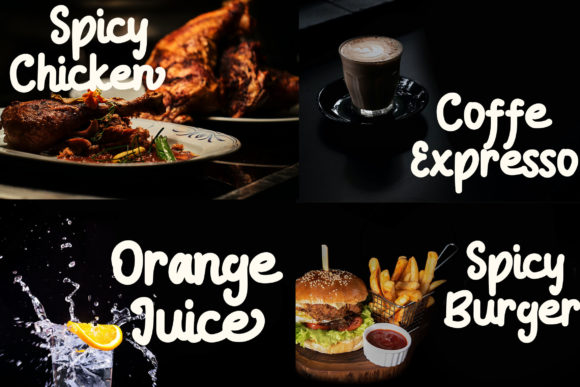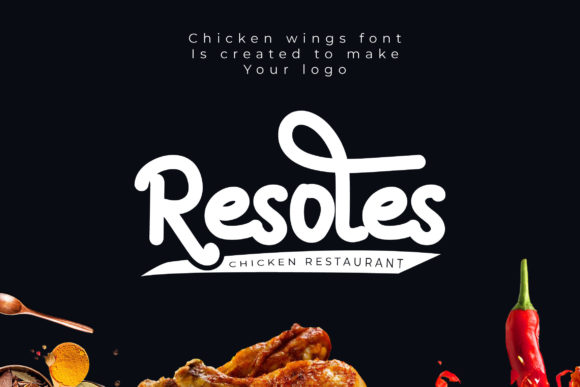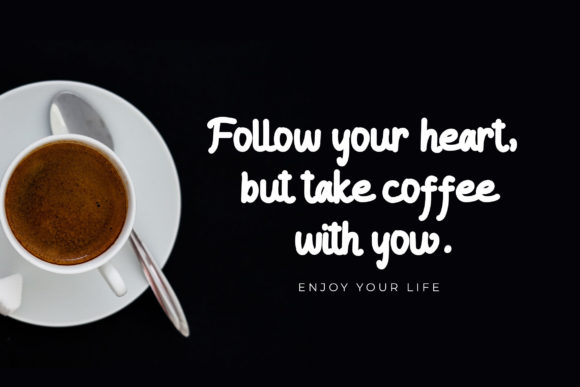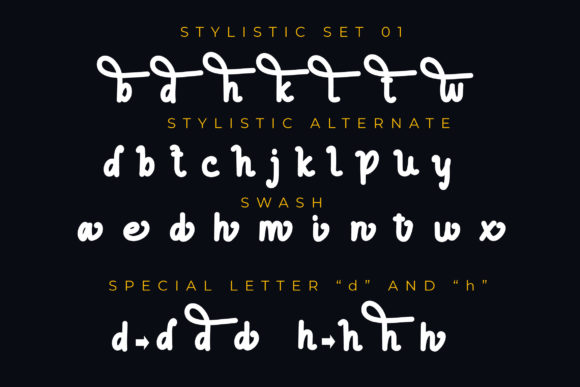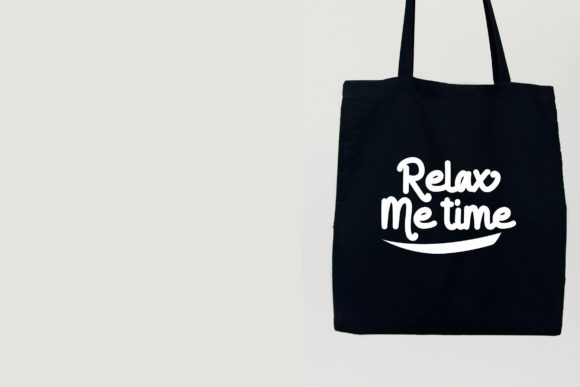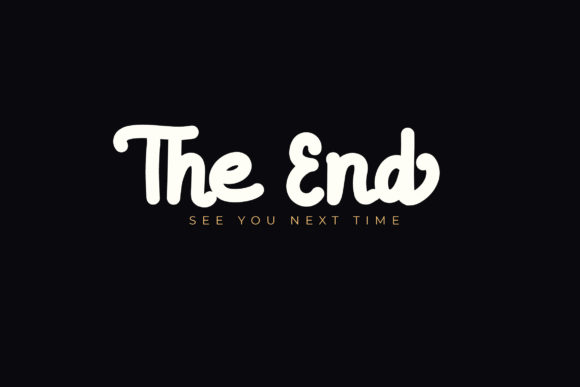
Chicken Wings Font
About Chicken Wings Font
Chicken Wings is a casual, thick lettered handwritten font. It is defined by smooth curves and is perfect for fashion branding or editorial designs. Add it confidently to your projects, and you will love the results.